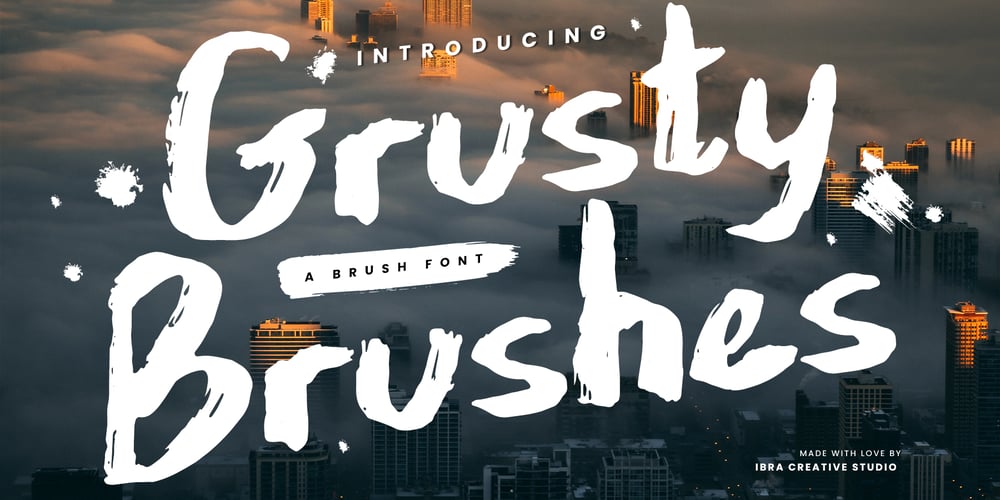
Grusty Brushes Font Family was designed by Roisatul Azizah and published by IbraCreative. Grusty Brushes contains 1 styles and family package options. Grusty Brushes – A Brush FontGrusty Brushes is an exquisite brush font that effortlessly combines elegance with a touch of rustic charm. With each stroke, the typeface exudes a sense of handcrafted authenticity, capturing the essence of brushwork. The font’s letters showcase a delightful irregularity, evoking the natural imperfections found in hand-painted scripts. Grusty Brushes is a versatile choice, perfect for conveying a warm and approachable feel in various design projects. Whether used for headings, logos, or creative displays, this font introduces a unique character and a distinct personality to any text, making it an excellent choice for those seeking a blend of sophistication and handmade aesthetics.Grusty Brushes is perfect for branding projects, logo, wedding designs, social media posts, advertisements, product packaging, product designs, label, photography, watermark, invitation, stationery, game, fashion and any projects.Fonts include multilingual support for; Afrikaans, Albanian, Czech, Danish, Dutch, English, Estonian, Finnish, French, German, Hungarian, Italian, Latvian, Lithuanian, Norwegian, Polish, Portuguese, Slovak, Slovenian, Spanish, Swedish.